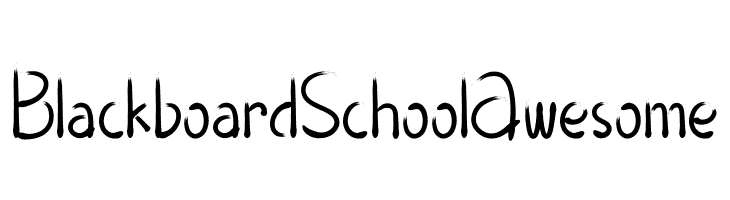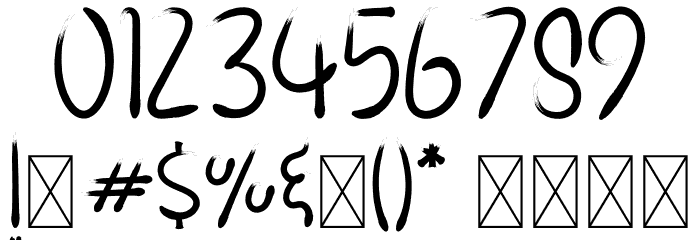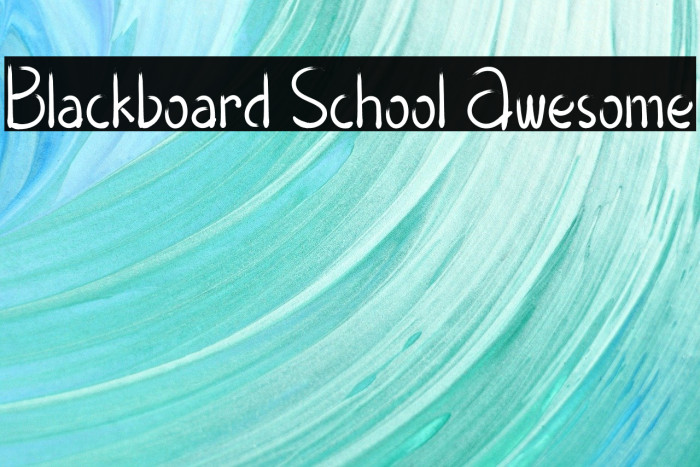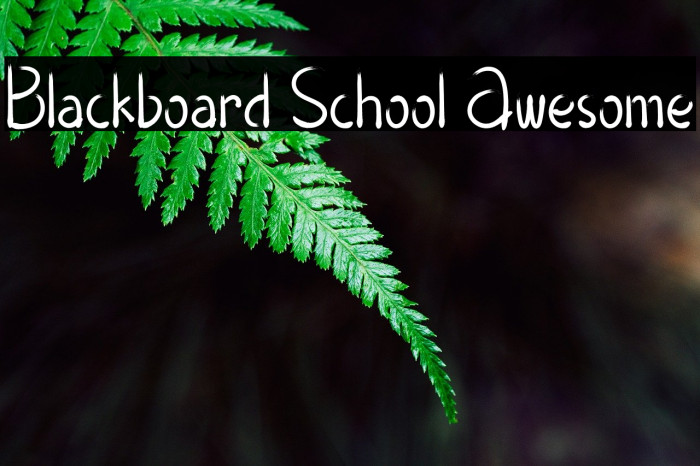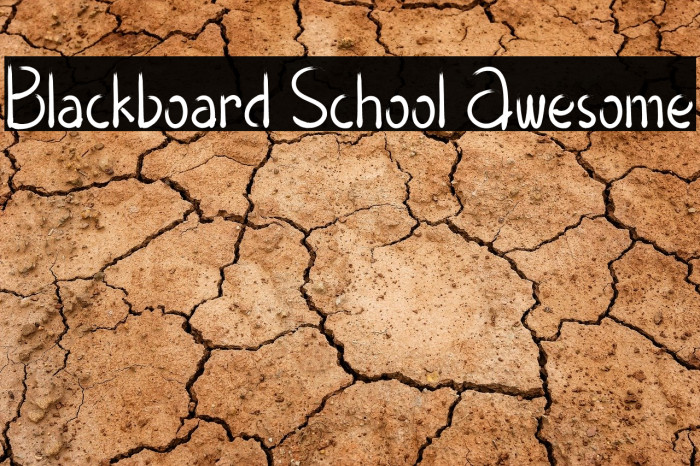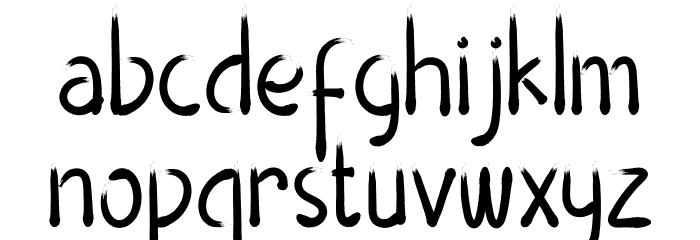
Blackboard School Awesome Font
Blackboard School Awesome Description
This font features a playful and casual handwritten style, reminiscent of chalk writing on a blackboard. The characters are slightly rounded with a brush-like texture, giving them a dynamic and lively appearance. The uppercase and lowercase letters maintain a consistent flow, with a slight slant that adds to the informal feel. The numerals are clear and legible, matching the overall aesthetic. Special characters are included, maintaining the same playful style. This font is perfect for projects that require a friendly and approachable look.
A playful, handwritten font with a chalk-like texture and informal style from Cartoon fonts.
- Proposed Projects: Ideal for educational materials, children's books, playful branding, and casual invitations.
- Overall Style: Casual
- Use Case: Headlines, Logos, Informal Text